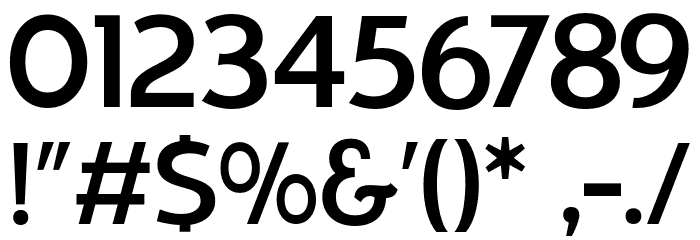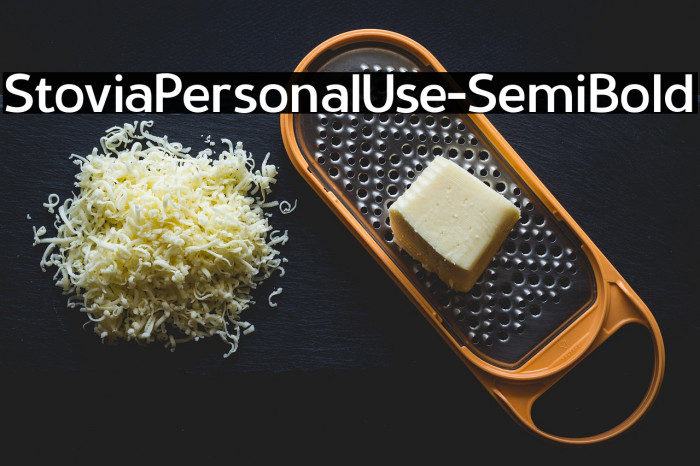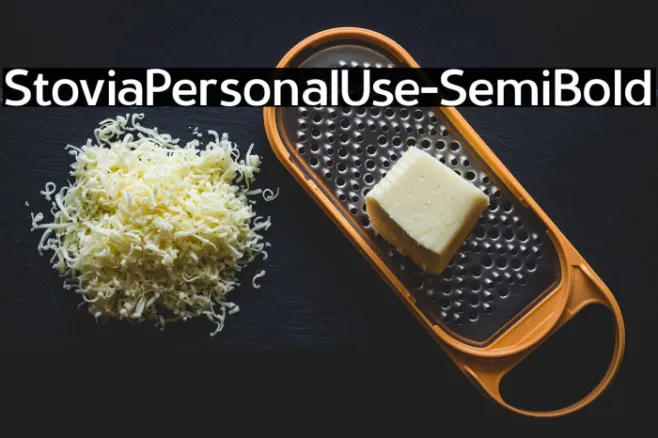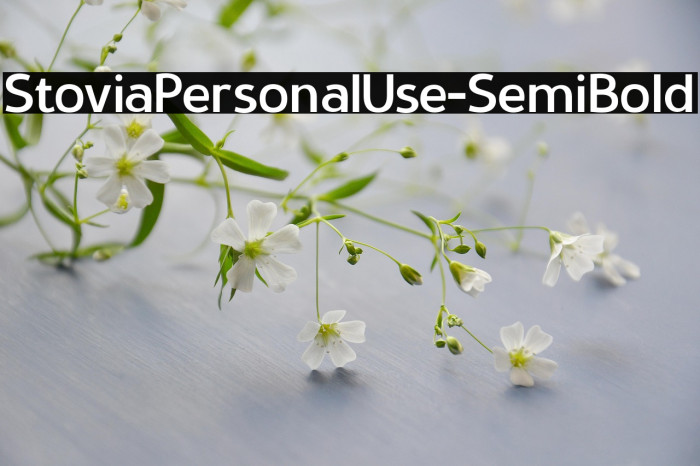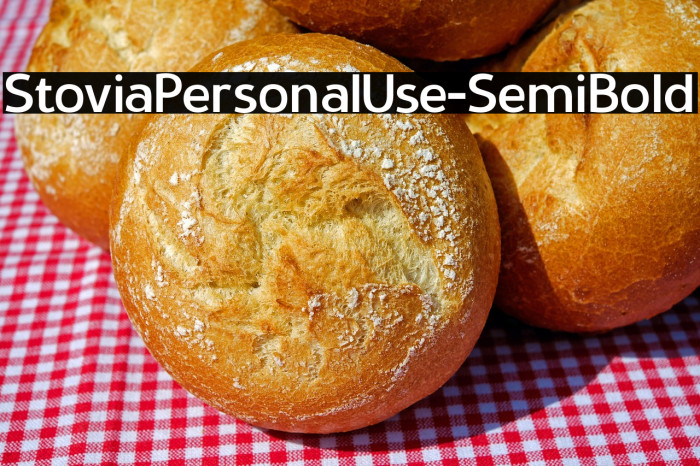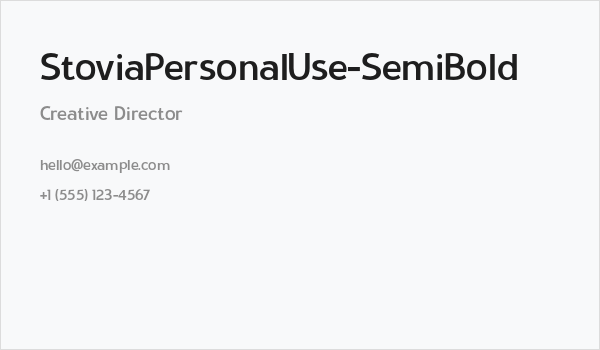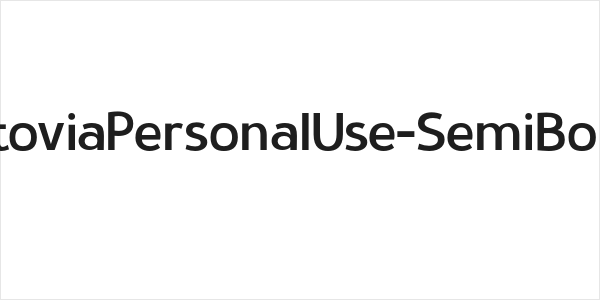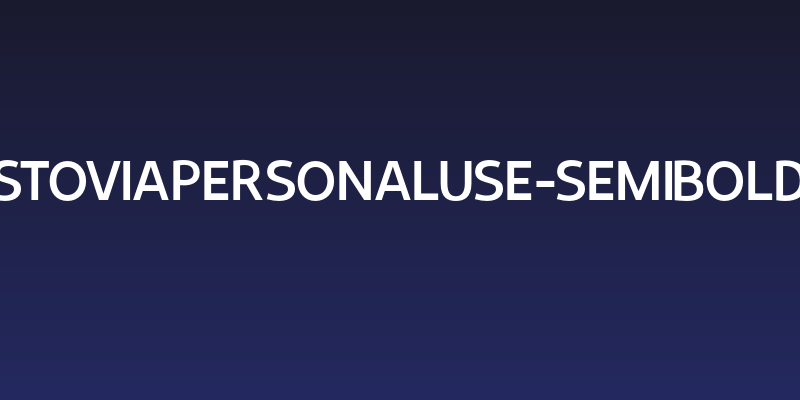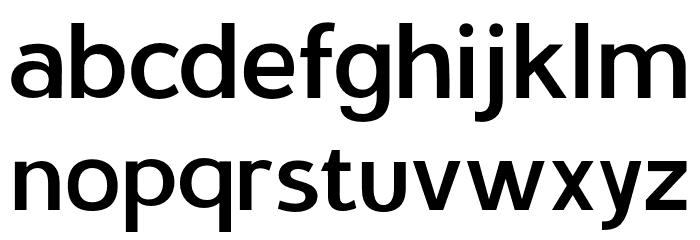
This font features a clean and modern sans-serif design, characterized by its semi-bold weight that provides a strong and assertive presence. The characters are well-balanced with a consistent stroke width, offering a harmonious and professional appearance. The uppercase letters are bold and impactful, while the lowercase letters maintain a friendly and approachable style. The numerals are clear and legible, making them suitable for various applications. Special characters are included, enhancing the font's versatility. Overall, this font is ideal for projects that require a contemporary and polished look.
Use CaseHeadlines, Body text, Logos
Proposed ProjectsIdeal for branding, advertising, web design, and corporate materials.